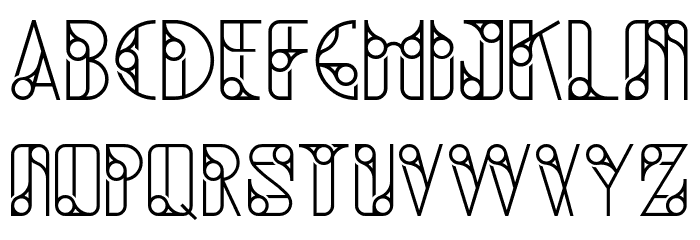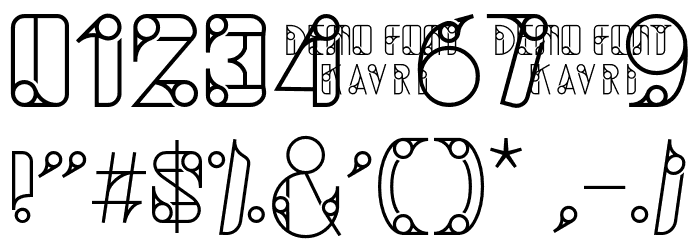
Kavri Font
This font features a unique and artistic design with geometric elements and circular accents integrated into each character. The letters are constructed with a combination of straight lines and curves, creating a visually intriguing and modern appearance. The uppercase and lowercase letters maintain a consistent style, with the circular motifs adding a decorative touch. Numbers and special characters follow the same design principles, ensuring a cohesive look across all elements. The font's distinct style makes it suitable for creative and bold design projects.
A geometric and artistic font with circular accents and modern design.
- Proposed Projects: Ideal for branding, posters, album covers, and any project requiring a bold and artistic touch.